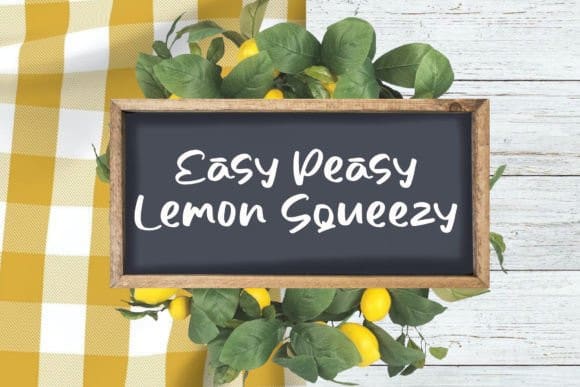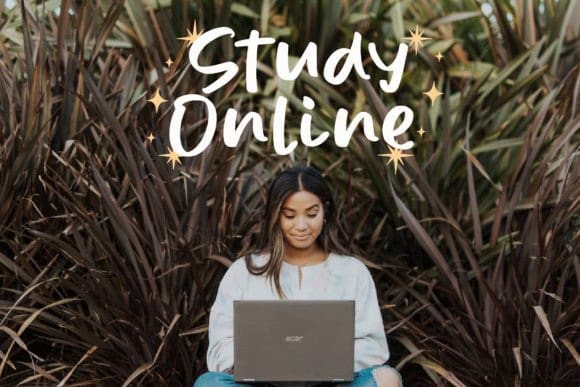
Jerika Playful Font
Jerika Playful Font is a fun and playful handwritten font. It will add an incredibly joyful touch to your designs. Add this beautiful font to each of your creative ideas and notice how it makes them stand out!